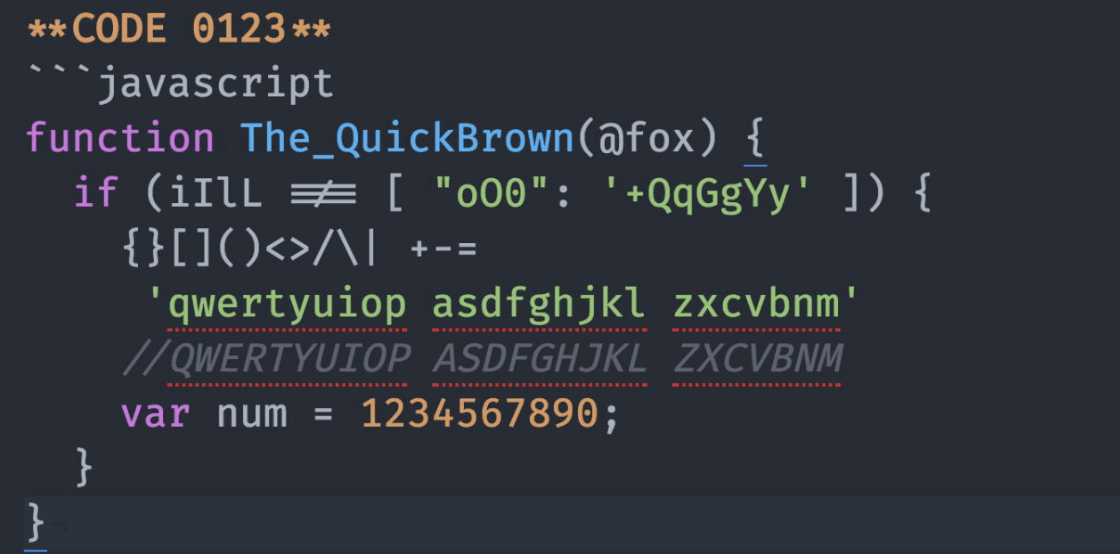
List Of Programming Fonts References
List Of Programming Fonts References. The main purpose of this post is to provide a base for those who. Vector fonts allow more efficient.
According to developers, monospace fonts are the best fonts for coding. Most of the important and popular programming languages are build on english characters, so the programming fonts must support english characters. One feature of this font is that the lowercase letters have maximized height.
Anonymous Pro 2009 — Mark.
Fira code fira code is an extension. This font for programming designed. As mentioned in january 2020, jetbrains created their own programming font, jetbrains mono, included in the jetbrains ide starting with version 2019.3.
Oh Man, Just Discovered Why The Text On Stack Overflow Looks Like Crap, It Forces Consolas Which Is A Cleartype Font,.
The monospaced font is designed to combine those. Pt mono is a simple russian style font, it’s good for coding and also greats on websites and documents. Most of the important and popular programming languages are build on english characters, so the programming fonts must support english characters.
The concept behind fira code is simple: Among 98 fonts, you can filter between sans, serif, vector, bitmap. 3270 2015 — ricardo bánffy website.
One Feature Of This Font Is That The Lowercase Letters Have Maximized Height.
I got responses about other fonts for programming. Agave 2013 — agaric website. Test drive your code in various fonts ideal for programming language.
10 best programming fonts to save you from eyestrain 1. A good font that’s used for. They are simple and beautiful.